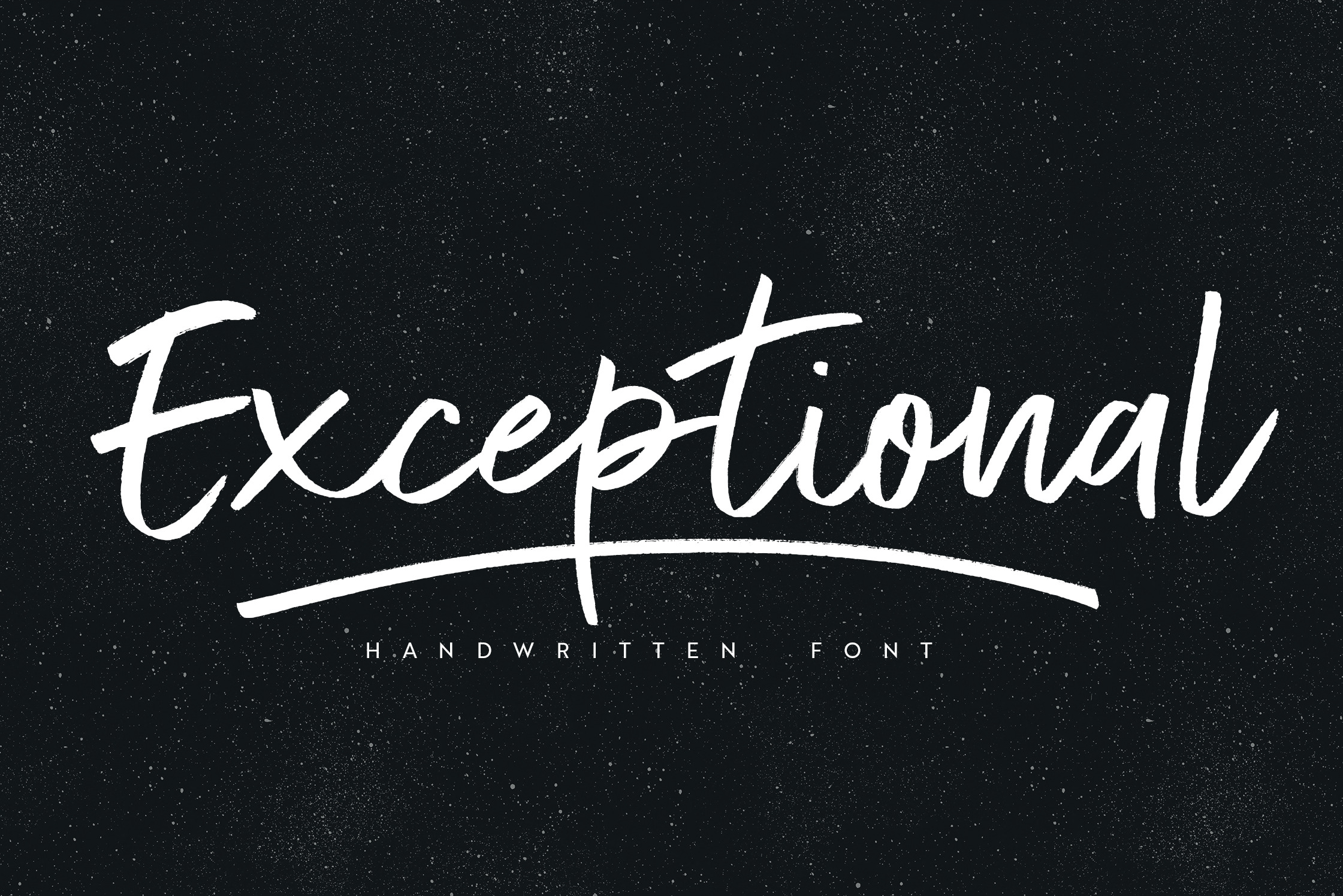
Exceptional font
Exceptional Is a super trendy Handwritten font, Elegant & modern with gentle brush texture , Exceptional comes with a complete set of lowercase and uppercase alternates(Uppercase letters can be used alone), It gives you the option to customize your text and to make it much more unique (It's very fun). And more great extra is the bonus Swash, this set come with 26 swashes, which allows you to add elegant & trendy finishing touches to your work.
Exceptional- A hand drawn script font containing uppercase and lowercase characters, numerals and a large range of punctuation TTF & OTF formats .
Exceptional Alt- This is a second version of Exceptional With new set of lowercase and uppercase characters TTF&OTF formats.
Exceptional Swash- A bonus set of 26 hand draw swashes the complete finishing touch for your Exceptional text!! use type any Letters a-z A-Z.